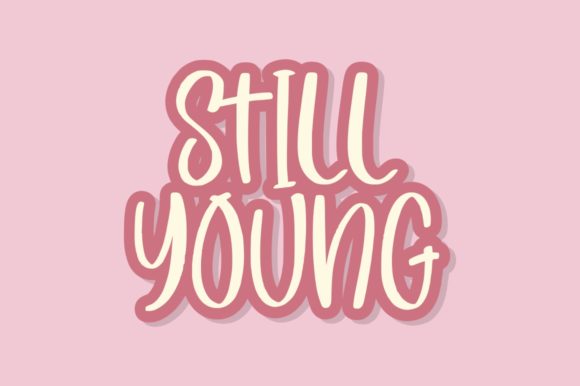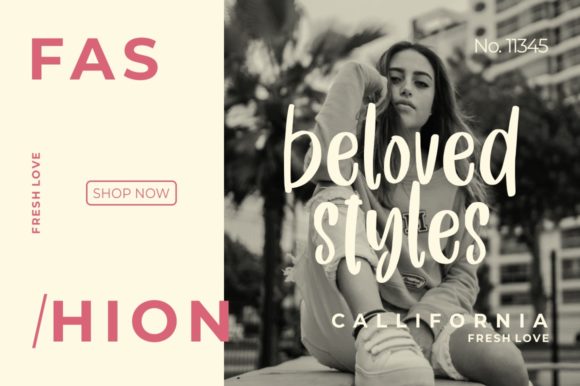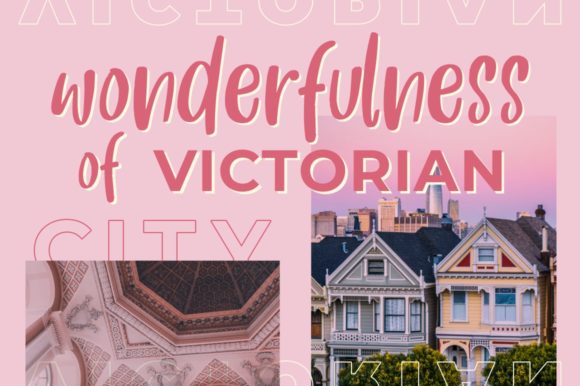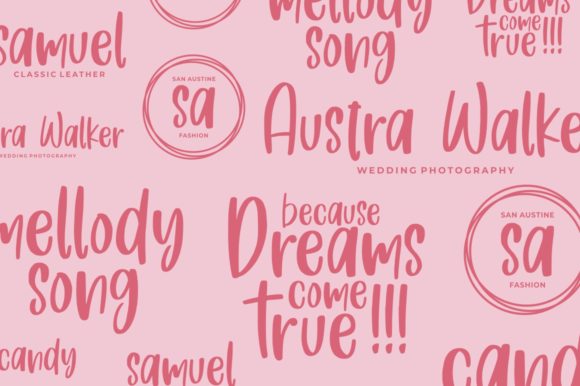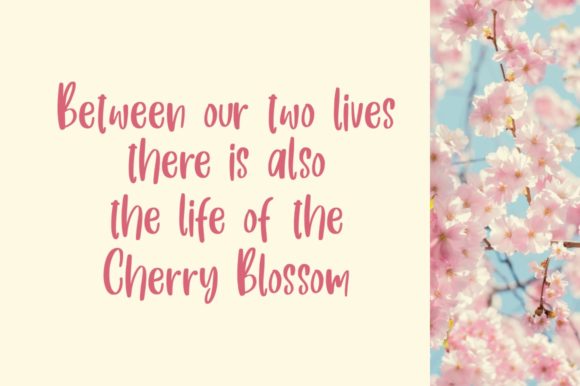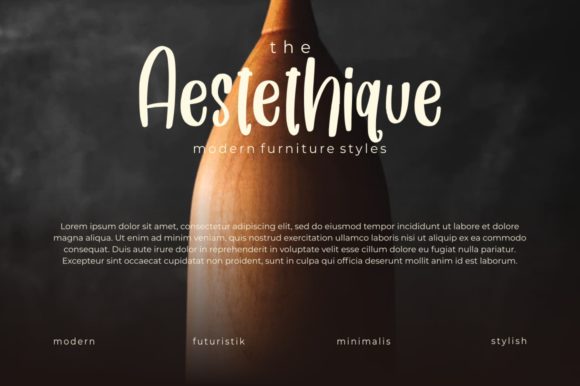
Discover the Charm of Fresh Love Font: A Designer’s Delight
I’ll never forget the time I was working on a project for a client who wanted a playful, yet elegant font to match their brand’s personality. I spent hours scouring the internet for the perfect one, but nothing seemed quite right. That was until I stumbled upon Fresh Love Font. Its lovely, handwritten characters and funny vibe instantly caught my attention, and I knew I had found the one. In this article, I’ll share my experience with Fresh Love Font, its features, and how to make the most of it in your designs.
A Personal Review of Fresh Love Font
So, what makes Fresh Love Font so special? Here are a few things I love about it:
- ✨ Unique Character Set: Fresh Love Font boasts a beautiful set of characters that are both contemporary and cool. Each letter, number, and symbol is carefully crafted to give your designs a personal touch.
- ✅ Ease of Use: This font is incredibly easy to read and works well for both digital and print projects. Whether you’re designing a social media graphic or a flyer, Fresh Love Font is a great choice.
- 💕 Emotional Connection: The font’s playful and funny vibe makes it perfect for projects that require a touch of personality and whimsy.
While Fresh Love Font is amazing, there are a few quirks to be aware of:
- 🤔 Limited Formality: Due to its playful nature, Fresh Love Font might not be the best choice for very formal or professional projects.
- ⚠️ Glyph Limitations: Some users have reported that the font could benefit from more glyphs and special characters.
The Story Behind Fresh Love Font
Fresh Love Font was designed with the intention of creating a unique, yet relatable font that captures the essence of modern love and relationships. The designer aimed to create a font that’s both funny and lovely, making it perfect for designs that require a touch of personality.
| Font Name | Fresh Love Font |
| Author | goodjavastudio |
| What makes Fresh Love Font unique? | Fresh Love Font stands out due to its lovely, handwritten characters and funny vibe, making it perfect for designs that require a personal touch. |
| Is Fresh Love Font suitable for formal projects? | While Fresh Love Font is amazing, it might not be the best choice for very formal projects due to its playful nature. |